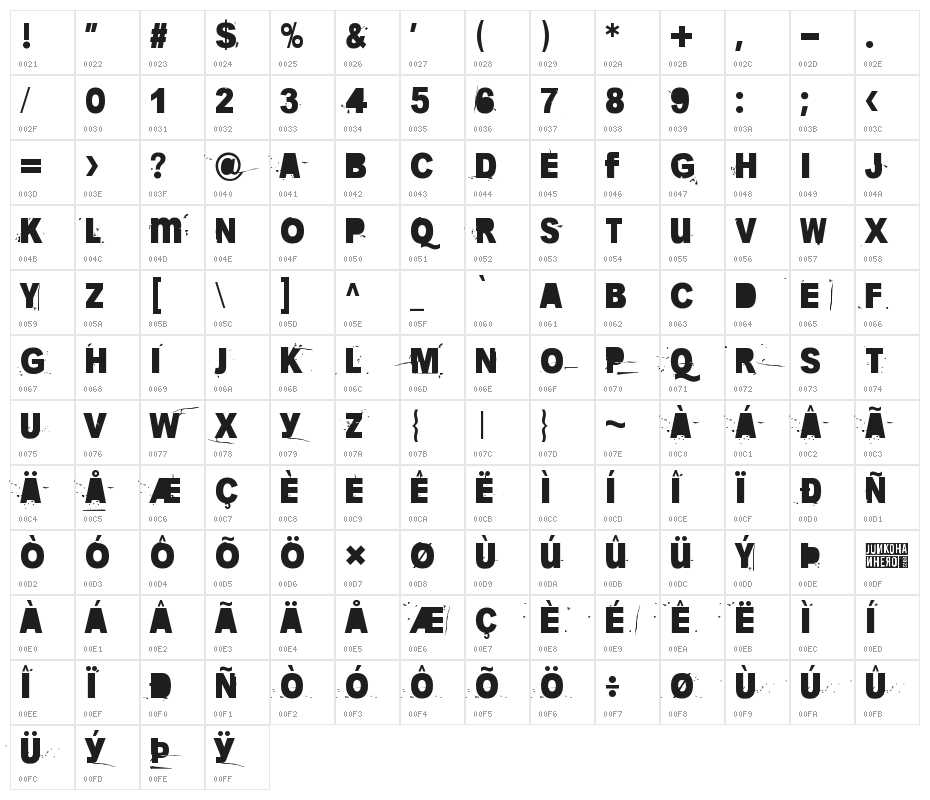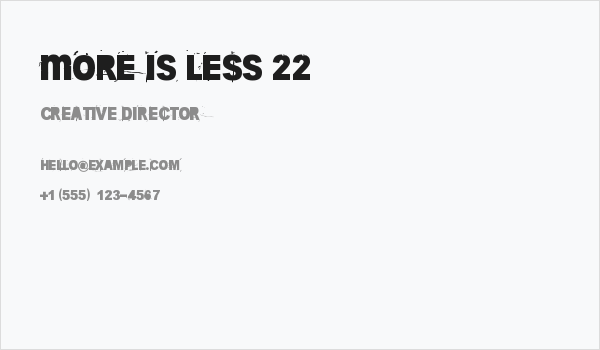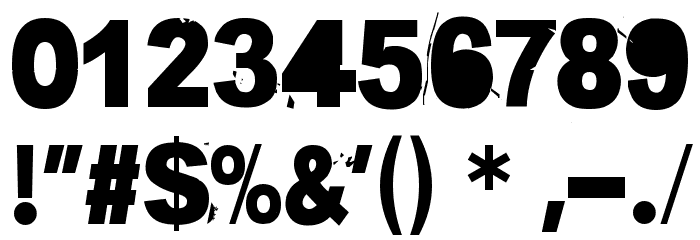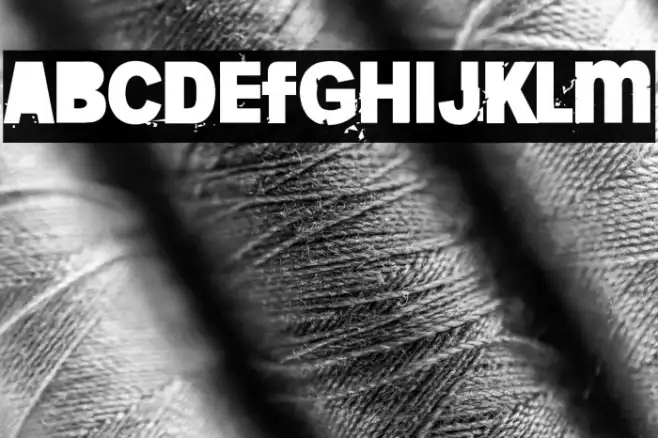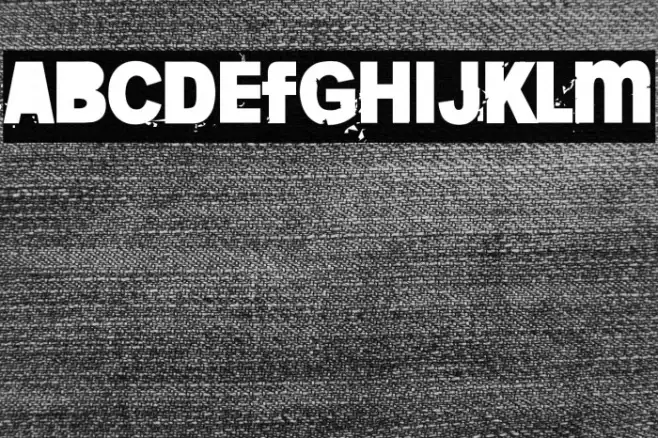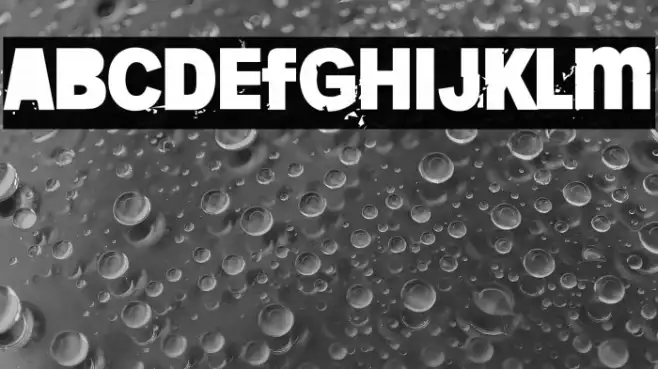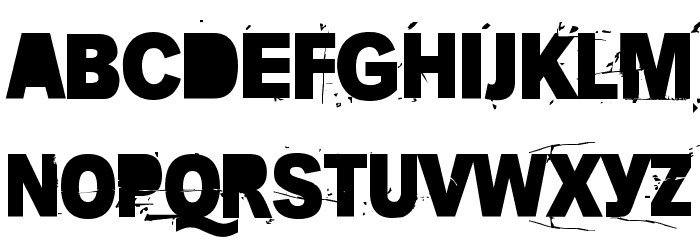
More is less 22 Font
More is less 22 Description
This font features a bold, distressed style with a grunge aesthetic, characterized by rough edges and a worn appearance. The uppercase and lowercase letters, along with numbers and special characters, exhibit a consistent heavy weight, giving the font a strong and impactful presence. The distressed texture adds a unique, edgy feel, making it suitable for designs that require a rugged or vintage look. The characters are tightly spaced, enhancing the boldness and making it ideal for attention-grabbing headlines or titles. Despite its rough appearance, the font maintains legibility, ensuring that the text remains clear and readable.
| Overall Style | Grunge, Vintage |
| Proposed Projects | Ideal for posters, album covers, branding for edgy products, or any design requiring a vintage or rugged look. |